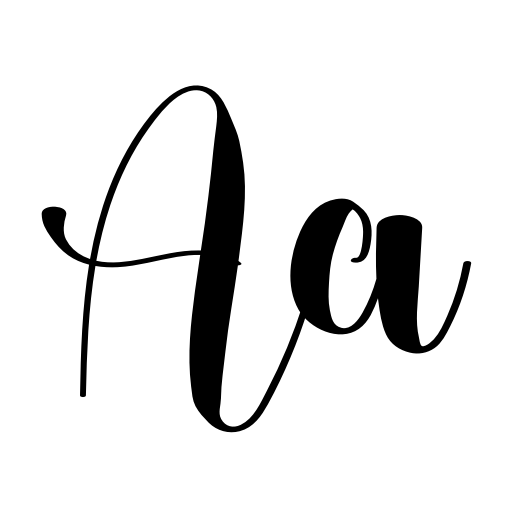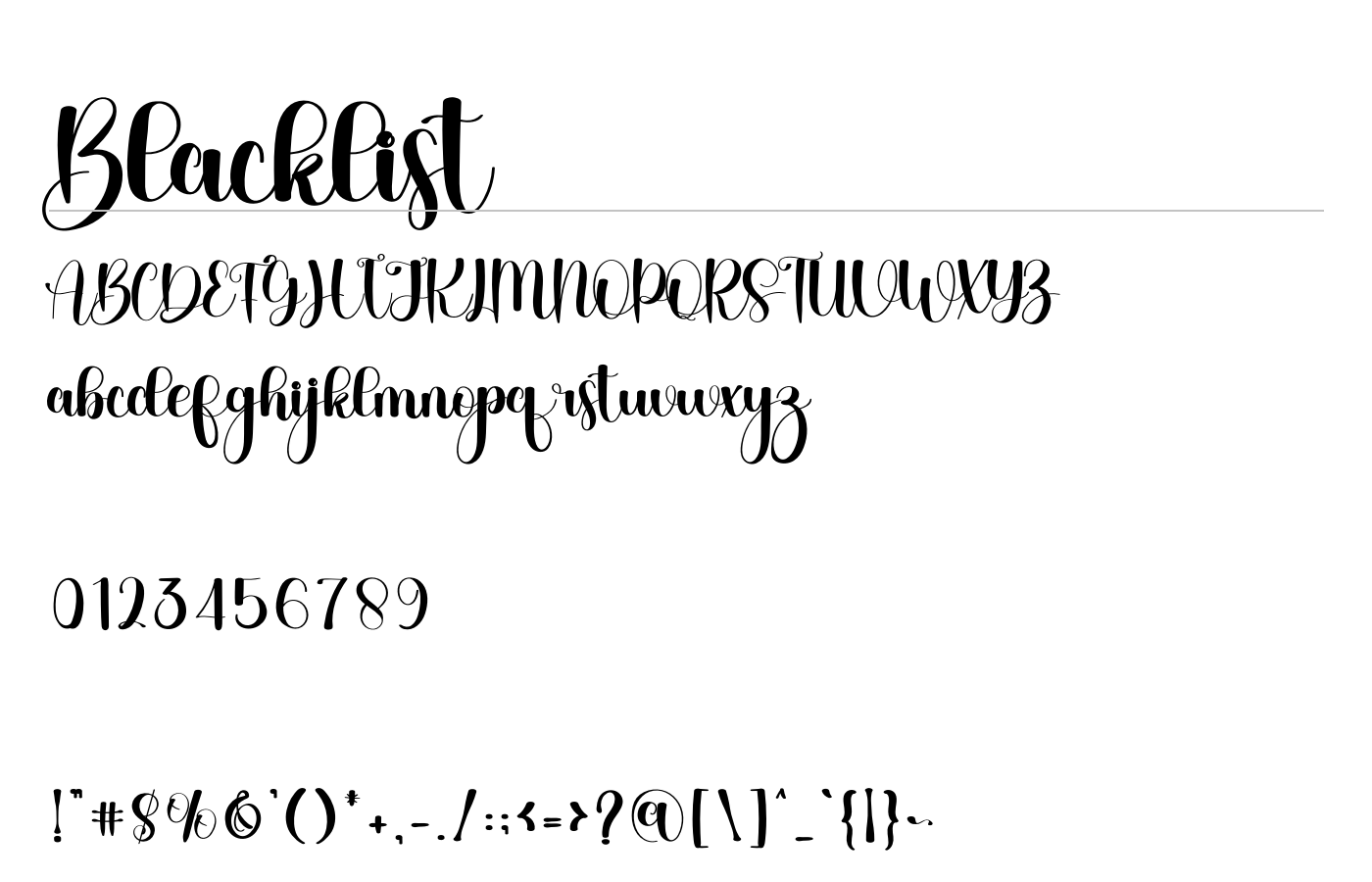
Blacklist Font is an elegant and playful script typeface with bold strokes and intricate swashes, combining a modern calligraphic flair with strong, rounded letterforms. Its dynamic contrast between thick and thin lines and distinctive loops make it perfect for fashion branding, invitations, and stylish logos where a personal, creative touch is desired. This font shines in headlines and decorative uses, adding sophistication and energy to any design.
Blacklist Font